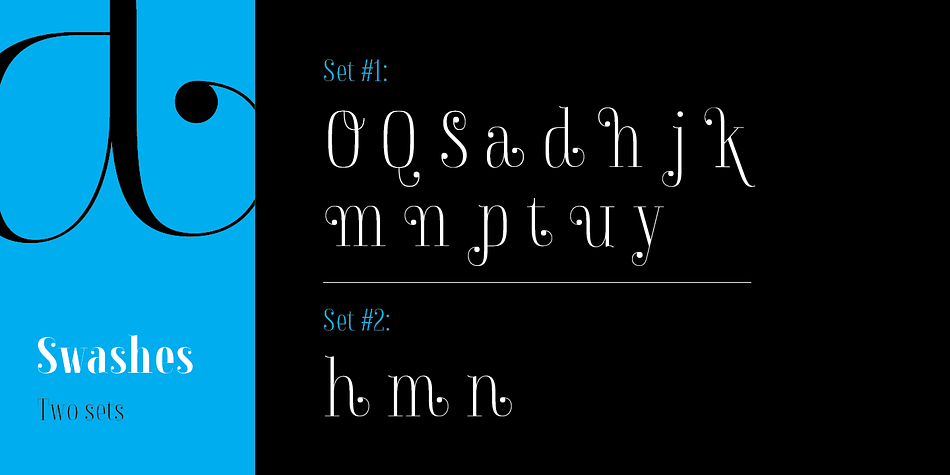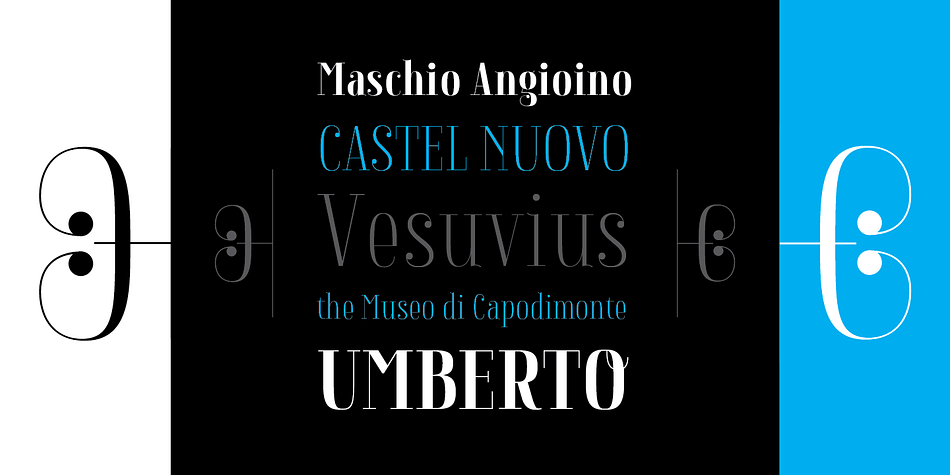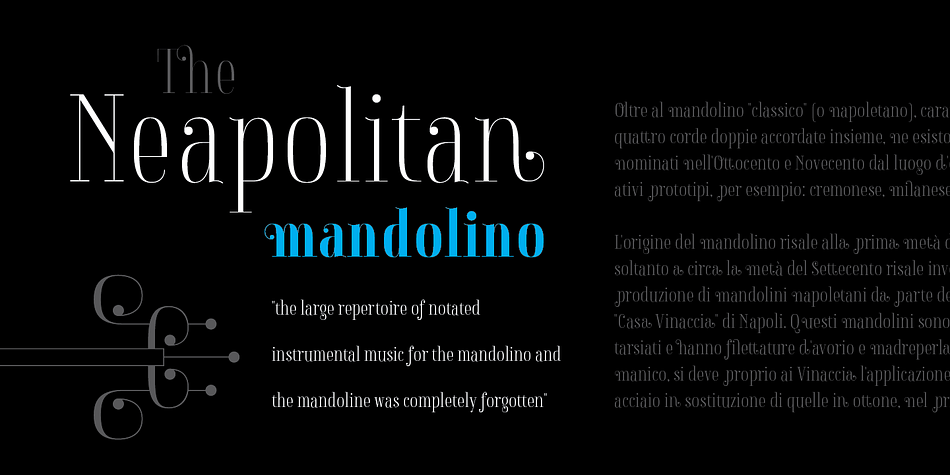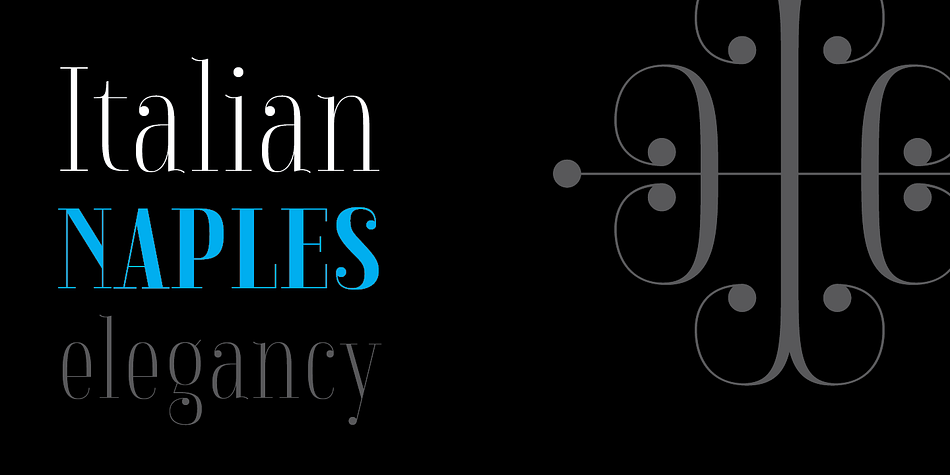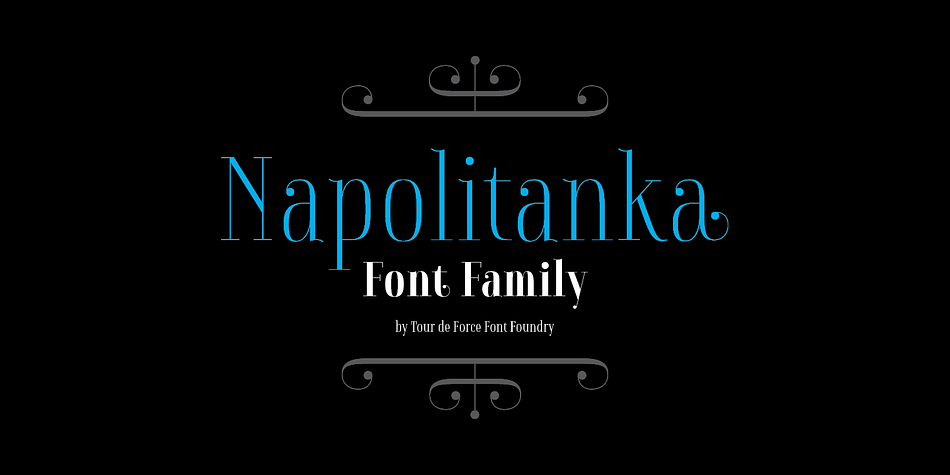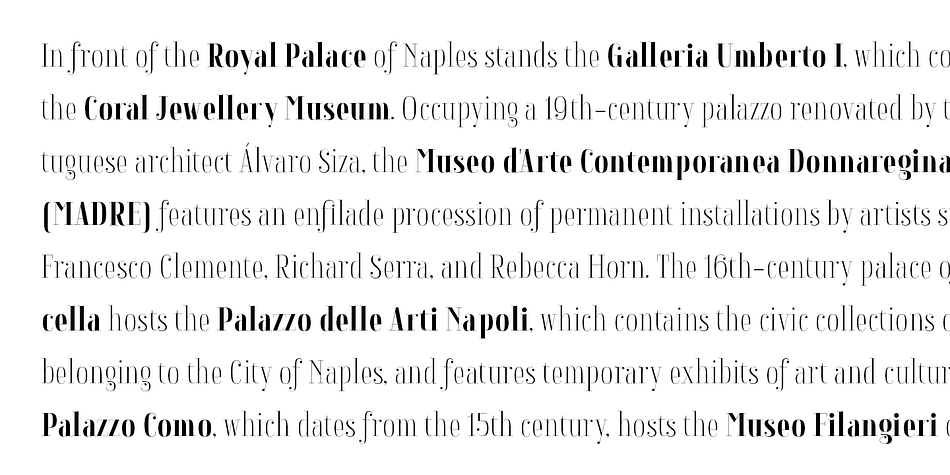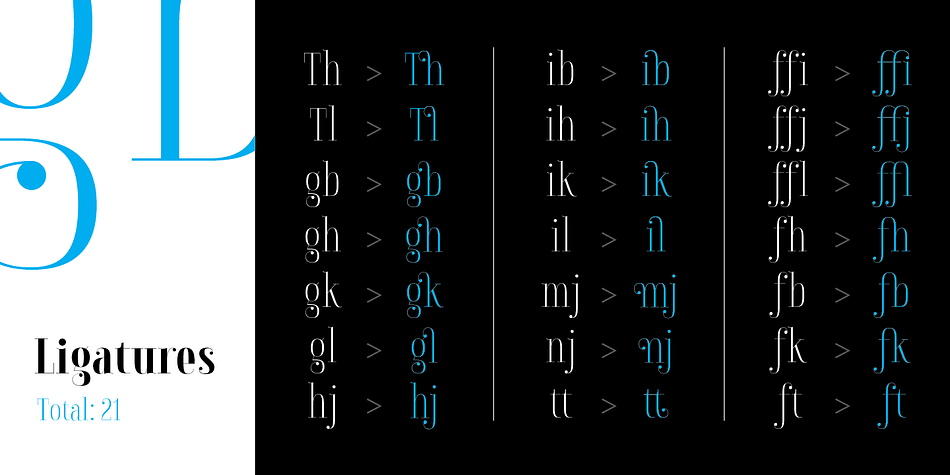
Designed by Dusan Jelesijevic, Napolitanka is a dingbat and serif font family. This typeface has three styles and was published by Tour de Force Font Foundry.
Napolitanka is elegant high contrasted font family.
Contains set of ligatures and swashes in each weight and borders as separate OTF file.